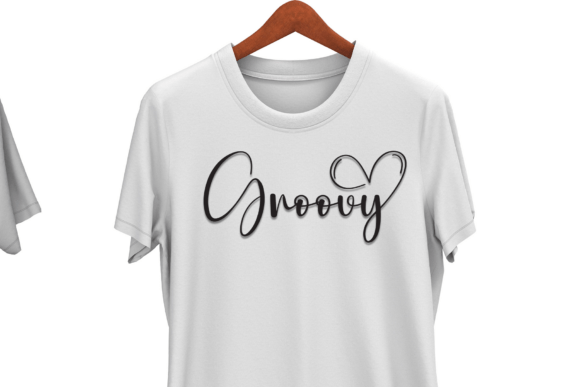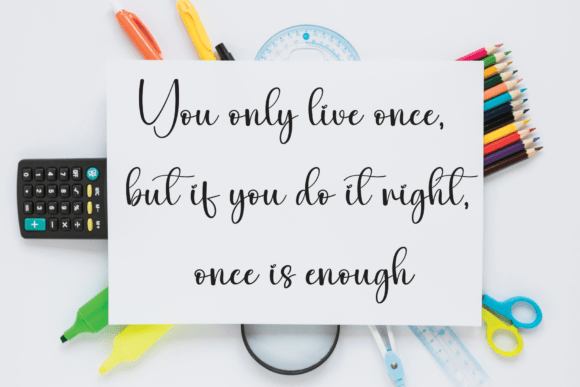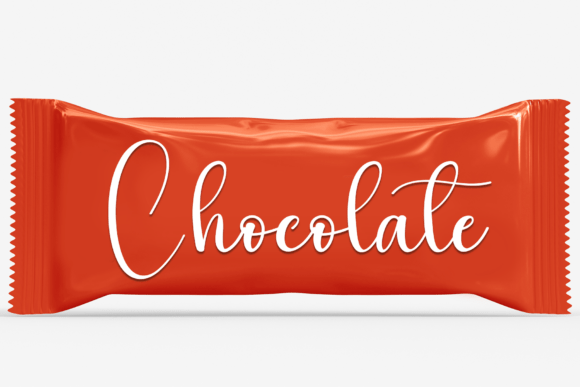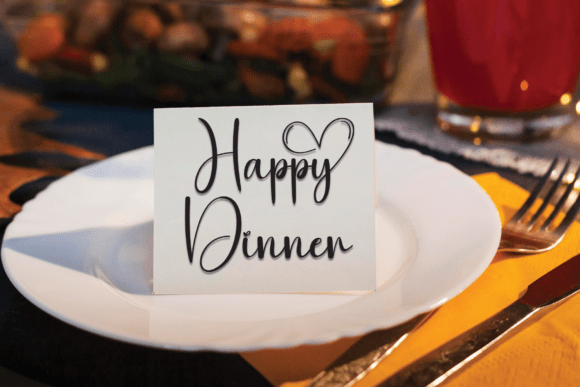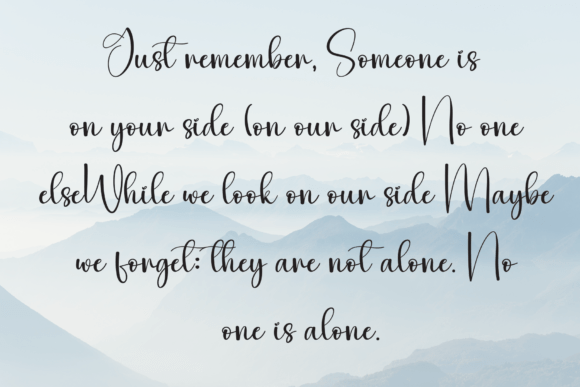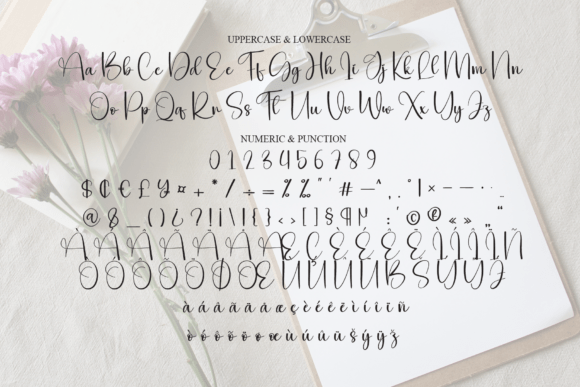
Introducing Deary Beauty Font: The Perfect Elegant Script for Your Designs
Are you looking for a font that adds a personal touch to your designs? Do you want to create elegant and sophisticated visual content that stands out from the crowd? Look no further than Deary Beauty Font, a charming script handwritten font that brings a touch of elegance and whimsy to your designs.
A Font that Feels like Handwritten with Care
Deary Beauty Font is a beautiful script font that is designed to mimic the natural flow of handwritten writing. With smooth curves and a slightly casual style, it feels like it was written with care, making it perfect for designs that require a personal touch. Whether you’re creating wedding invitations, personal branding materials, greeting cards, or lifestyle blog graphics, Deary Beauty Font is the ideal choice.
One of the standout features of Deary Beauty Font is its versatility. It shines in both romantic and modern aesthetics, making it a great addition to any designer’s font collection. Whether you’re going for a classic, elegant look or a more modern, trendy feel, Deary Beauty Font adapts seamlessly to your design style.
Perfect for Wedding Invitations and Personal Branding
Deary Beauty Font is a popular choice for wedding invitations, and for good reason. Its elegant and sophisticated style makes it perfect for formal wedding announcements, save-the-date cards, and thank-you notes. But it’s not just limited to wedding designs – it’s also great for personal branding materials, such as business cards, letterheads, and logos.
Add a Touch of Elegance to Your Greeting Cards and Lifestyle Blog Graphics
Deary Beauty Font is also a great choice for greeting cards, including birthday cards, holiday cards, and get-well cards. Its friendly and approachable style makes it perfect for adding a personal touch to your card designs. And for lifestyle bloggers, Deary Beauty Font is a great addition to your graphics toolkit, adding a touch of elegance and sophistication to your blog posts and social media graphics.
Key Features of Deary Beauty Font
- Charming script handwritten font: Deary Beauty Font is a beautiful script font that mimics the natural flow of handwritten writing.
- Smooth curves and natural flow: The font features smooth curves and a natural flow, making it feel like it was written with care.
- Slightly casual style: Deary Beauty Font has a slightly casual style that makes it perfect for designs that require a personal touch.
- Versatile: The font shines in both romantic and modern aesthetics, making it a great addition to any designer’s font collection.
- Pair it with a sans-serif font: Pair Deary Beauty Font with a sans-serif font, such as Arial or Helvetica, for a modern and elegant look.
- Use it for headings and titles: Deary Beauty Font is perfect for headings and titles, adding a touch of elegance and sophistication to your designs.
- Experiment with different colors: Try out different colors and textures to add depth and interest to your designs.
Deary Beauty Font is a charming script handwritten font that brings a personal, elegant touch to your designs. With its smooth curves, natural flow, and slightly casual style, it’s perfect for wedding invitations, personal branding, greeting cards, and lifestyle blog graphics. Its versatility shines in both romantic and modern aesthetics, making it a great addition to any designer’s font collection. So why wait? Download Deary Beauty Font today and start creating beautiful, elegant designs that stand out from the crowd.